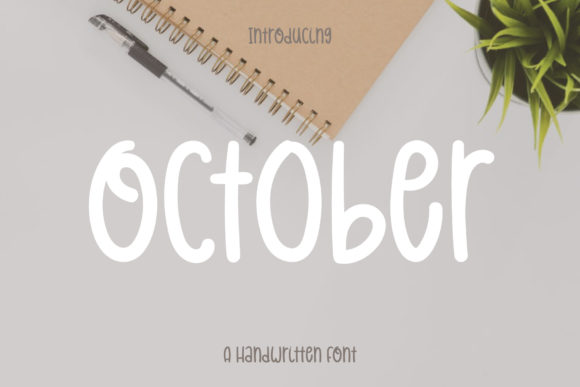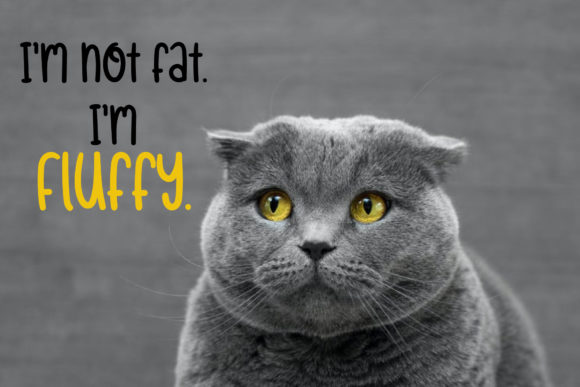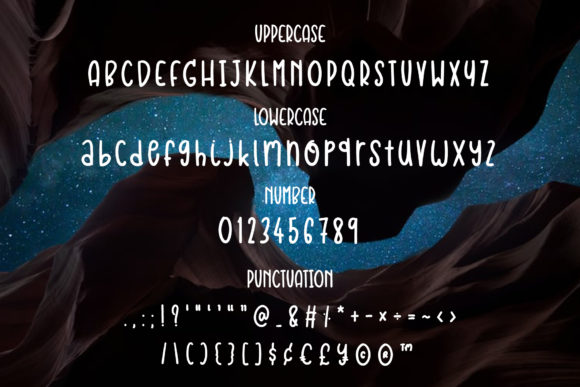
About October Font
October is a is a bold modern handwritten font, carefully handcrafted to become a true favorite. Its casual charm makes it appear wonderfully down-to-earth, readable and, ultimately, incredibly versatile.